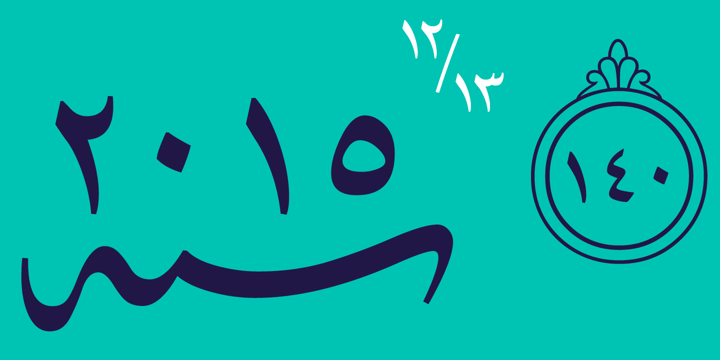
Bustani™
by Monotype
About Bustani Font Family
The Bustani™ typeface is a typographic interpretation of Naskh, a principal calligraphic style of Arabic script. Designed by Patrick Giasson and Kamal Mansour, Bustani is the first OpenType® font to offer full classical Naskh contextual shaping, while supporting all the numerous languages that use the Arabic writing system without the need for auxiliary plugins (an OpenType compliant application is required). Through the use of OpenType® stylistic sets, Bustani features intelligence to choose the appropriate letterforms for faithful interpretation of Naskh calligraphy. Bustani supports Arabic, Farsi, and Urdu – in addition to many other languages. While primarily intended for setting literary text, the Bustani typeface can also be used in a broader variety of projects that require classic, graceful shapes. “The face shines in environments where the text is given breathing space,” says Giasson. “This includes poetry, literature and artistic publications – perhaps even adding a bit of flair to parking tickets,” he quipped.
Designers: Patrick Giasson, Kamal Mansour